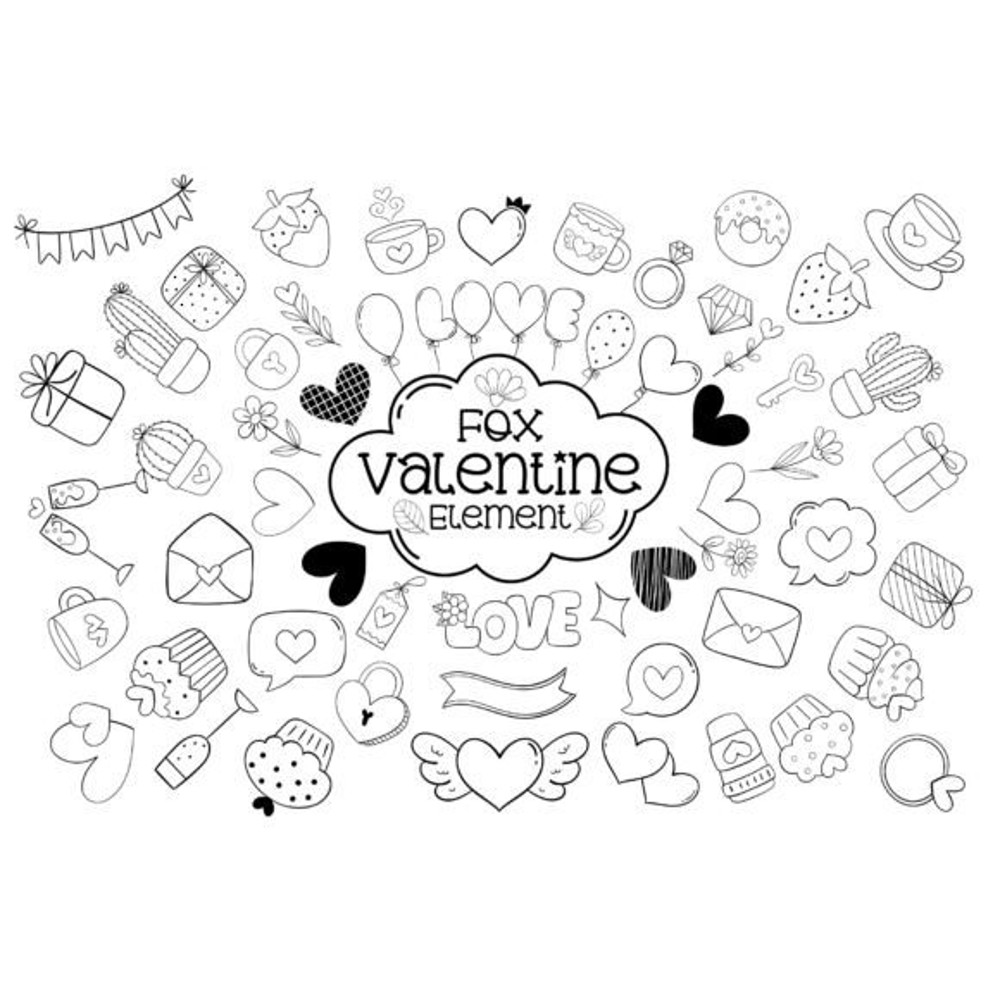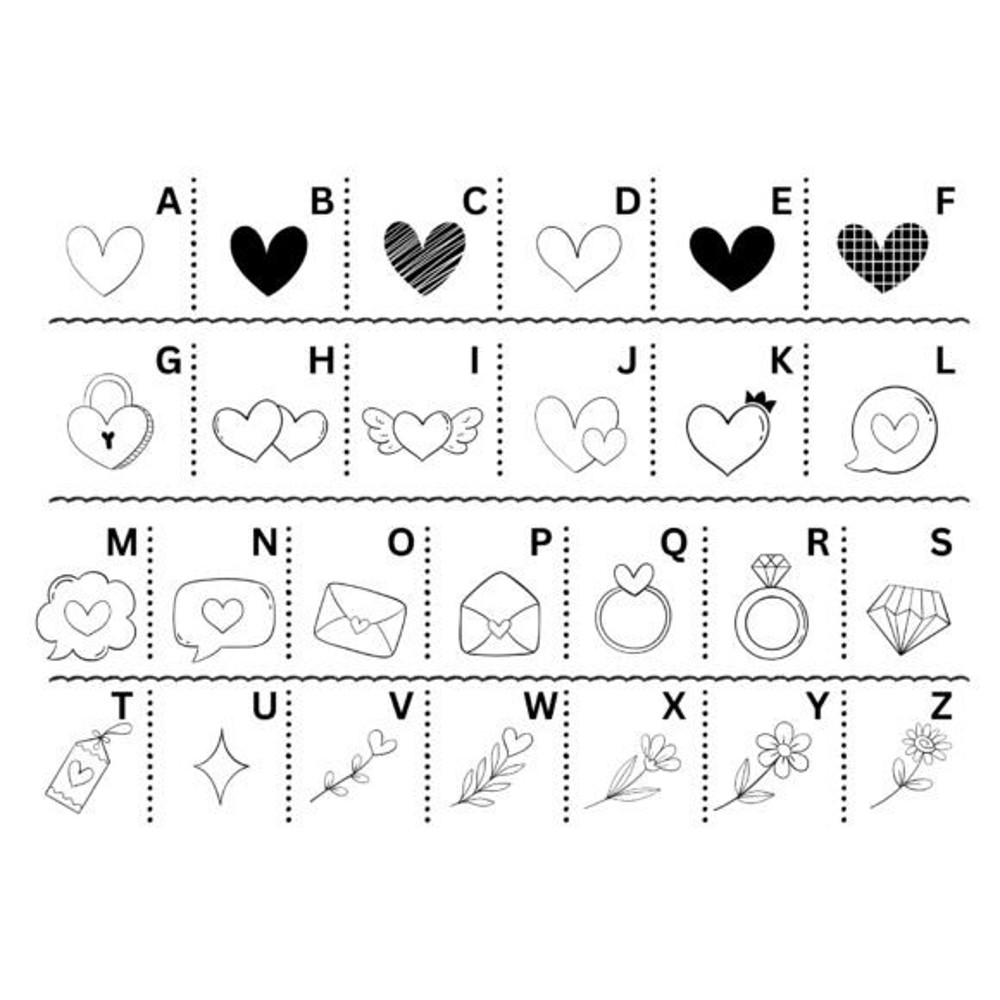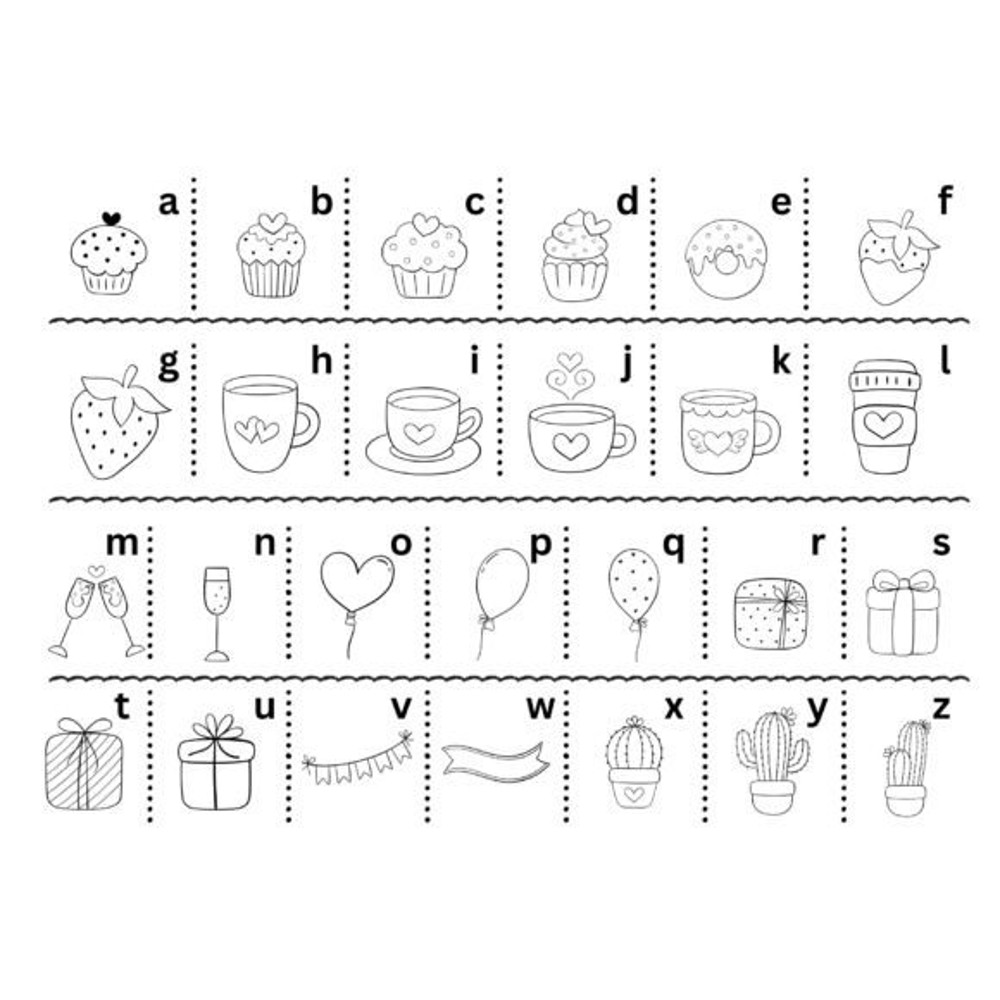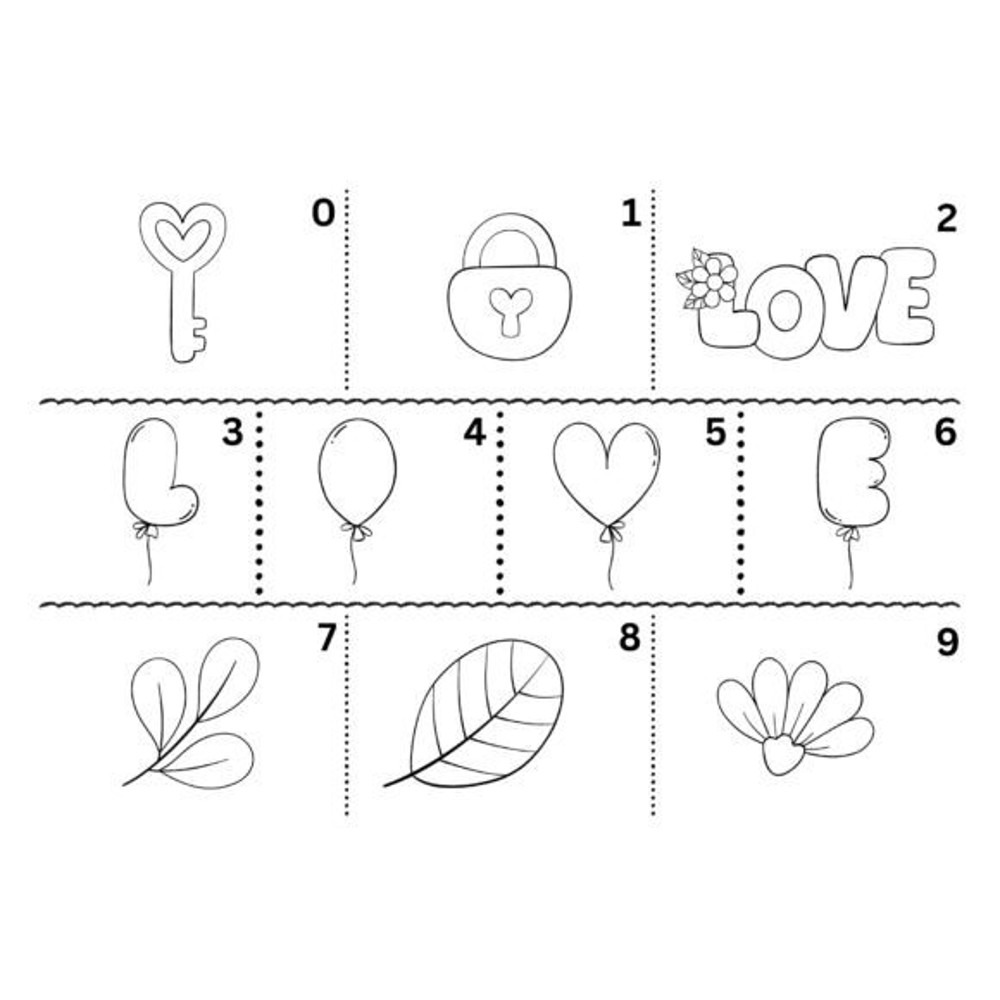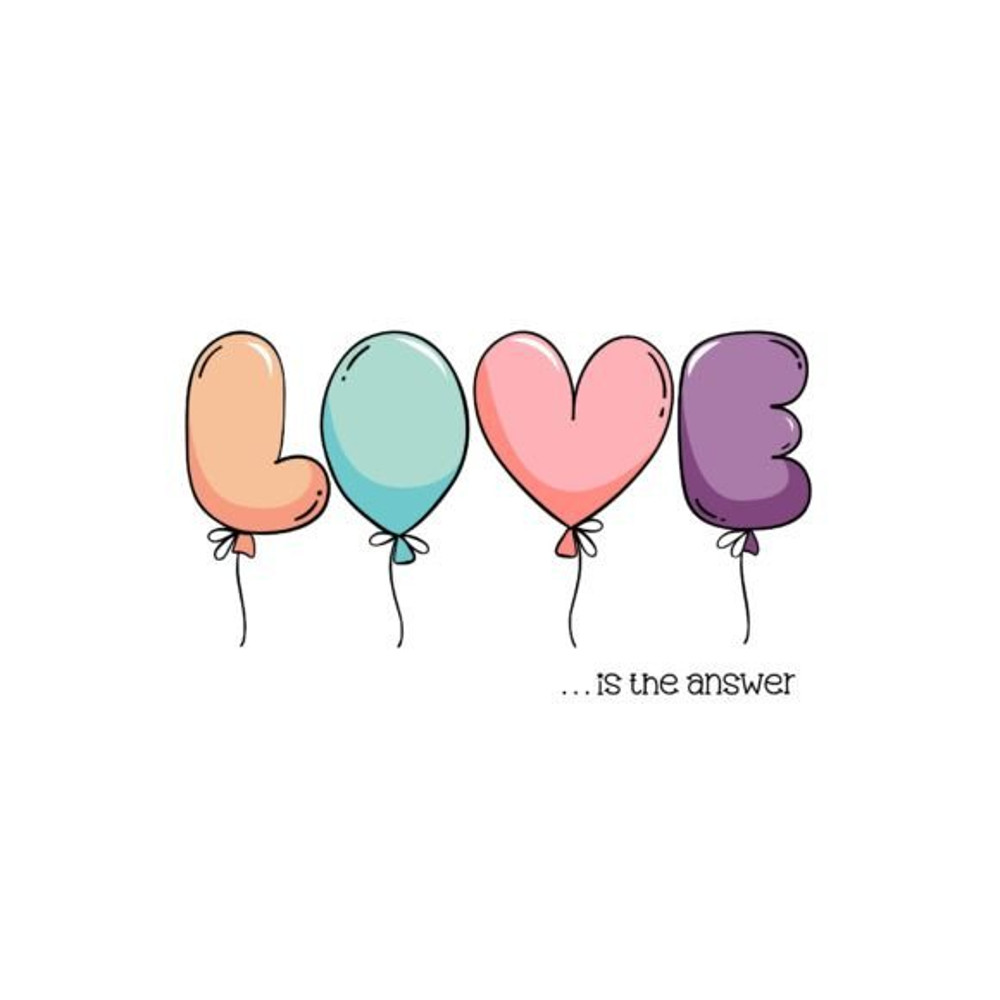
Fox Valentine Font
Fox Valentine Doodle is a cute dingbat font specially designed for the Valentine’s season and party., Its versatility makes it great for a wide pool of craft projects, designs, planners, diaries, activity books, or anything that your heart desires. Add this beautiful doodle dingbat font to each of your creative ideas, and notice how it makes them stand out.